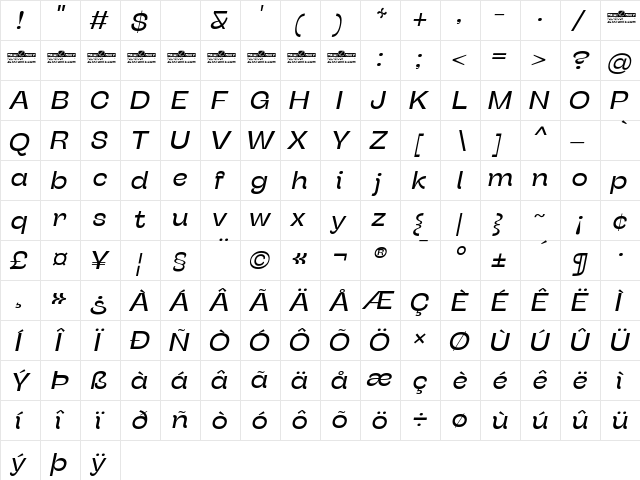
Stinger Wide Trial Italic
| Foundry | Studio Kmzero & Zetafonts |
| Designer | Cosimo Lorenzo Pancini |
Design Context for Stinger Wide Trial Typeface
Stinger Wide Trial is a composed and adaptable typeface that performs quietly and consistently across a wide range of design contexts. Its italic angle brings a sense of urgency and motion to the letterforms.
Pro Tip: Use Stinger Wide Trial for emphasis, pull quotes, and subheadings where its slanted energy can add rhythm to the layout.